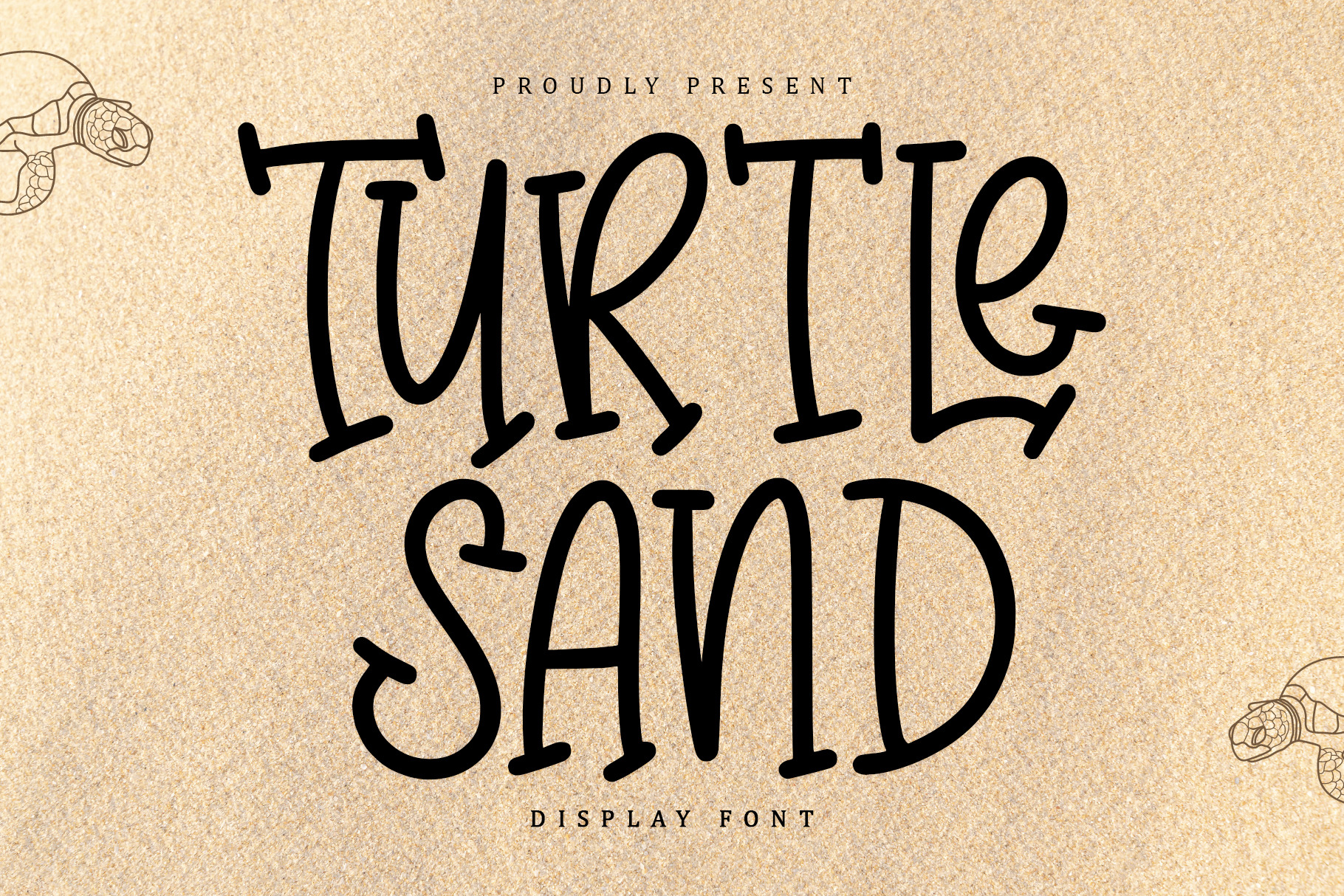
Turtle Sand | Display Font
Turtle Sand is a fun and friendly handwritten font. Masterfully designed to become a true favorite, this font has the potential to bring each of your creative ideas to the highest level!